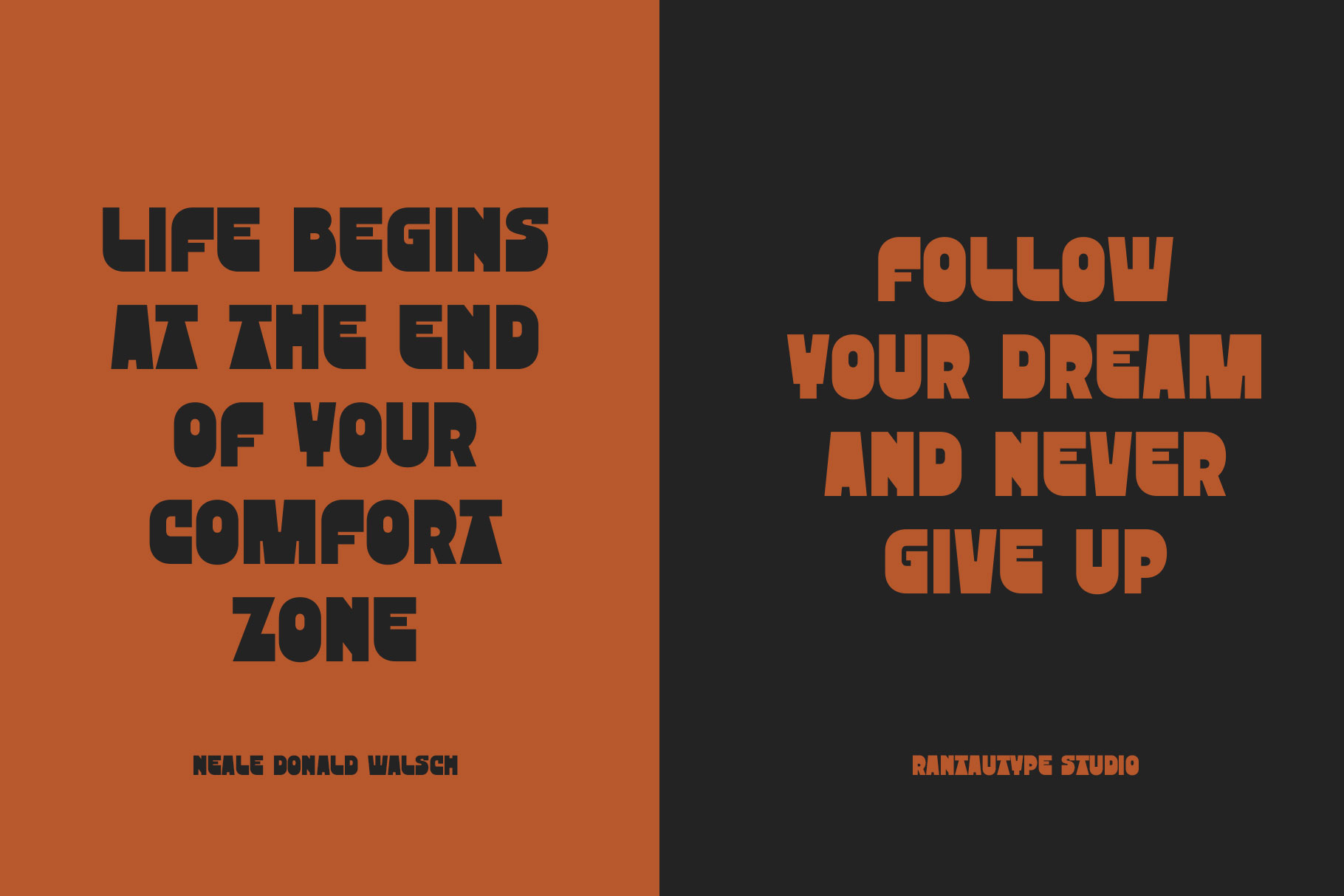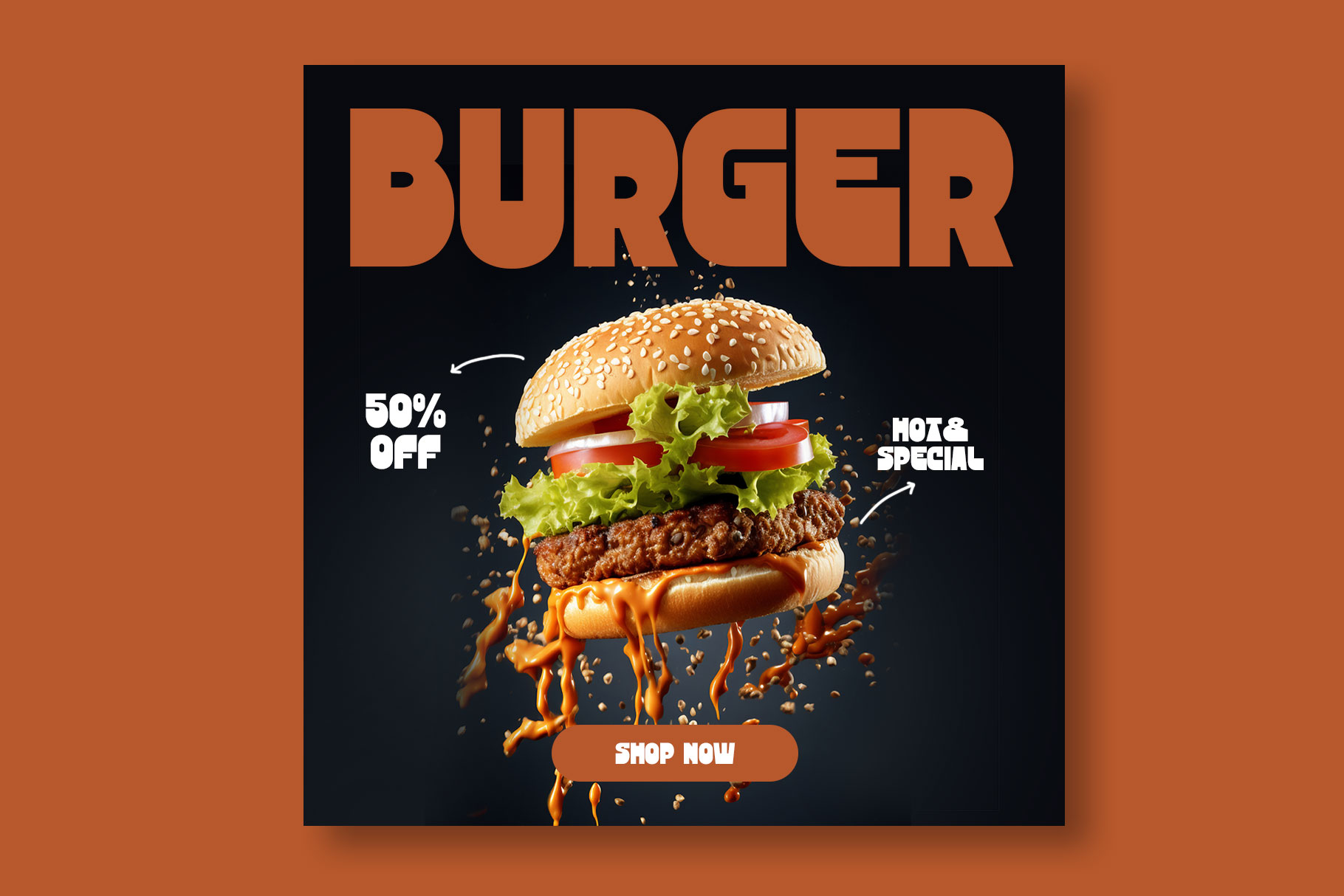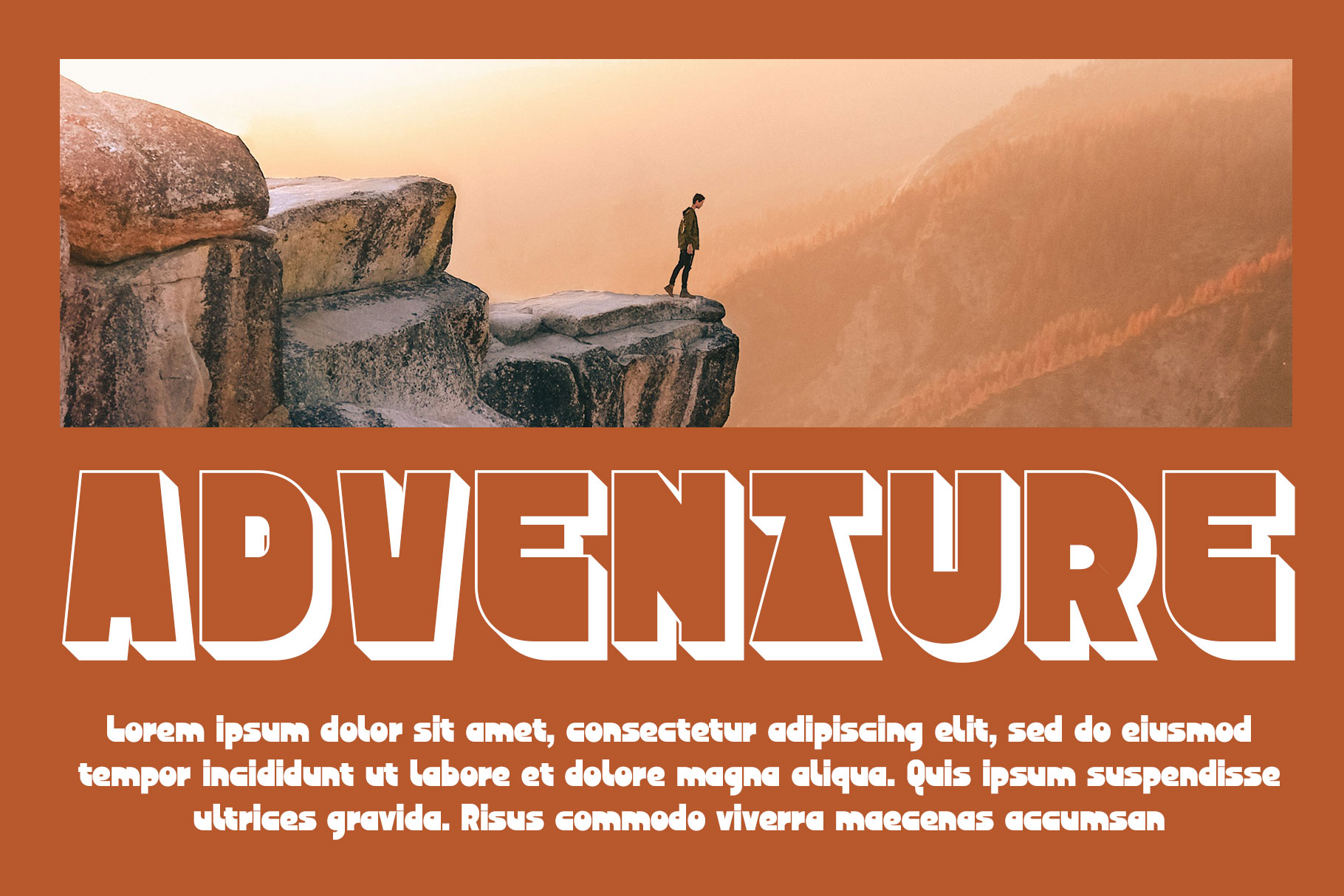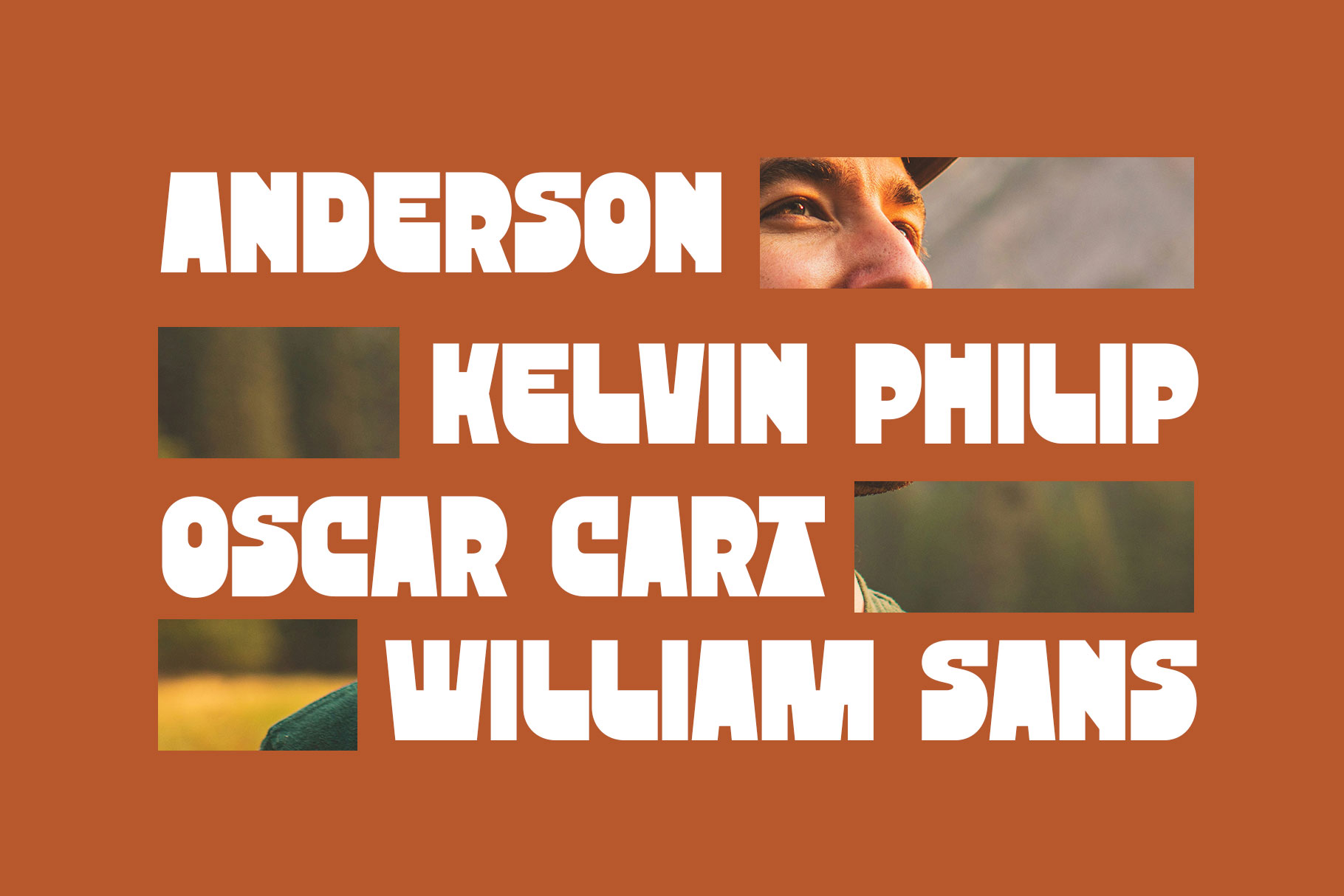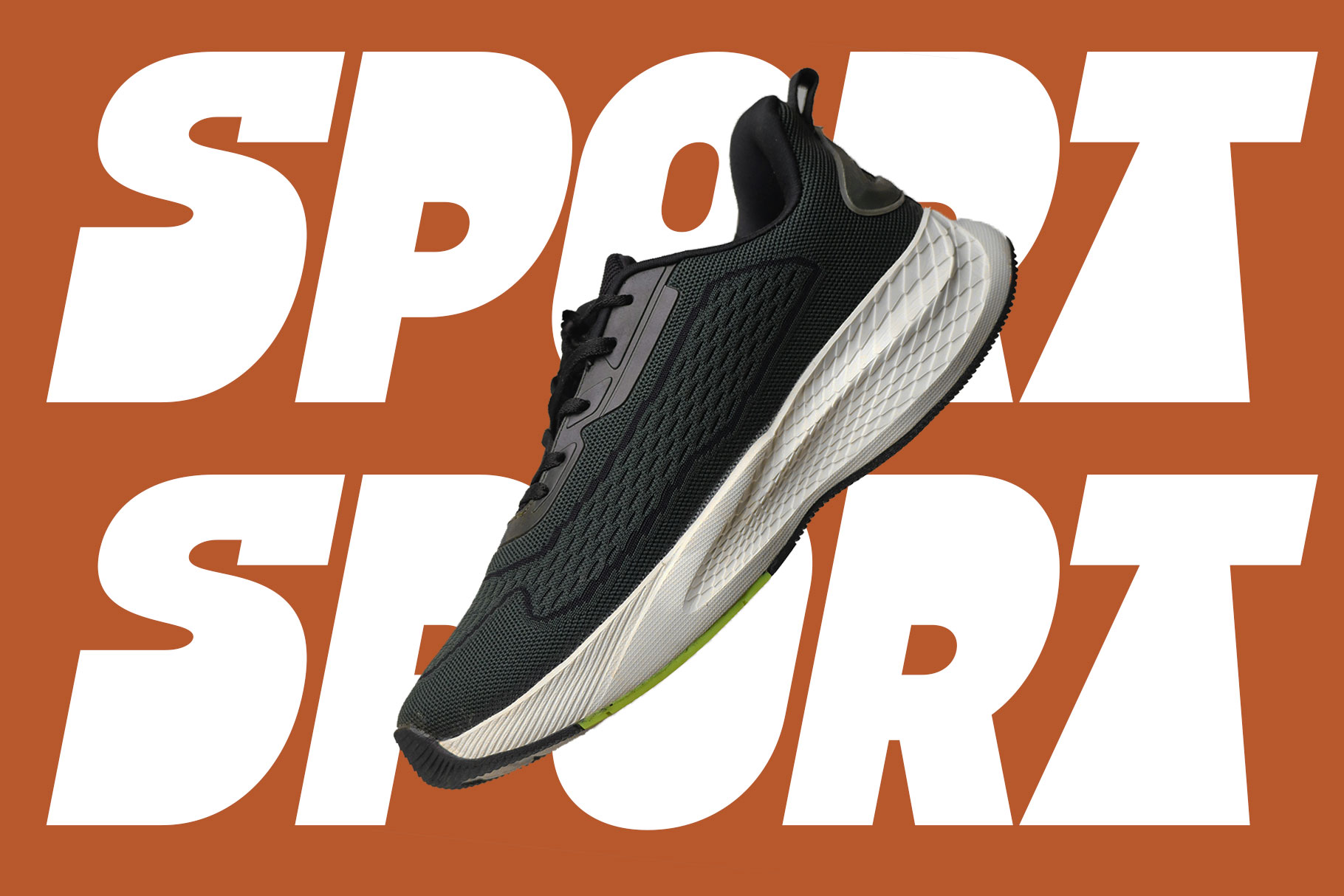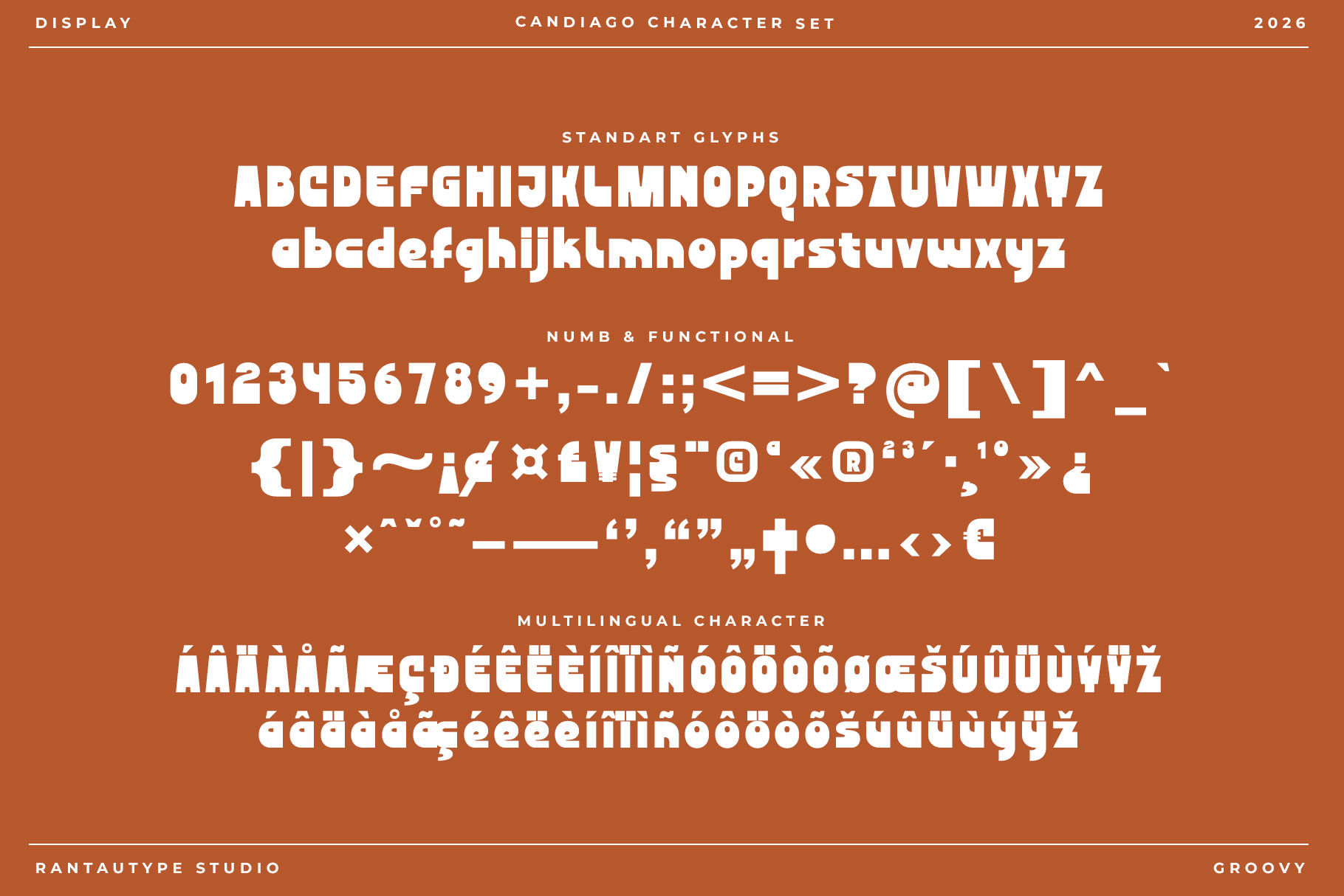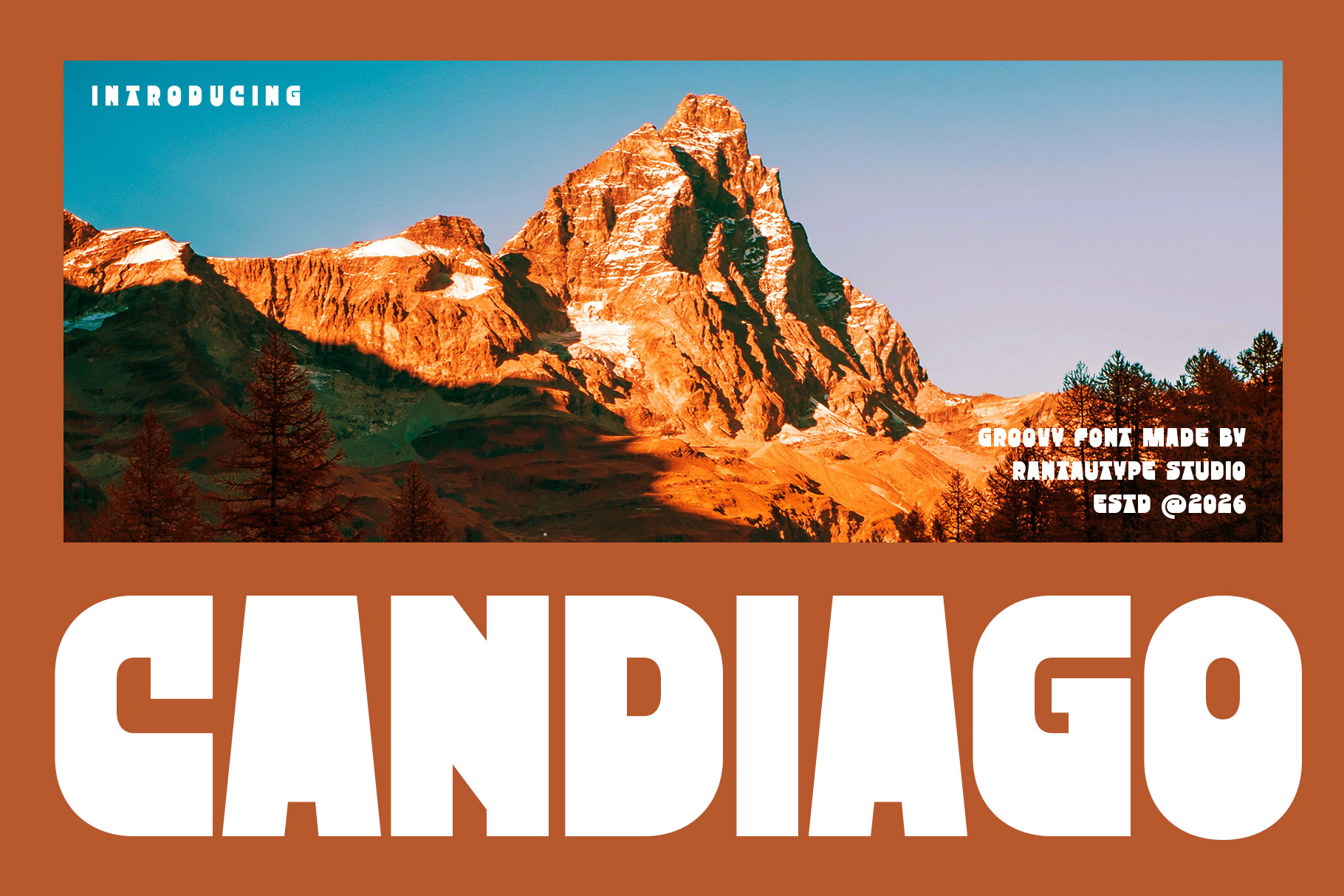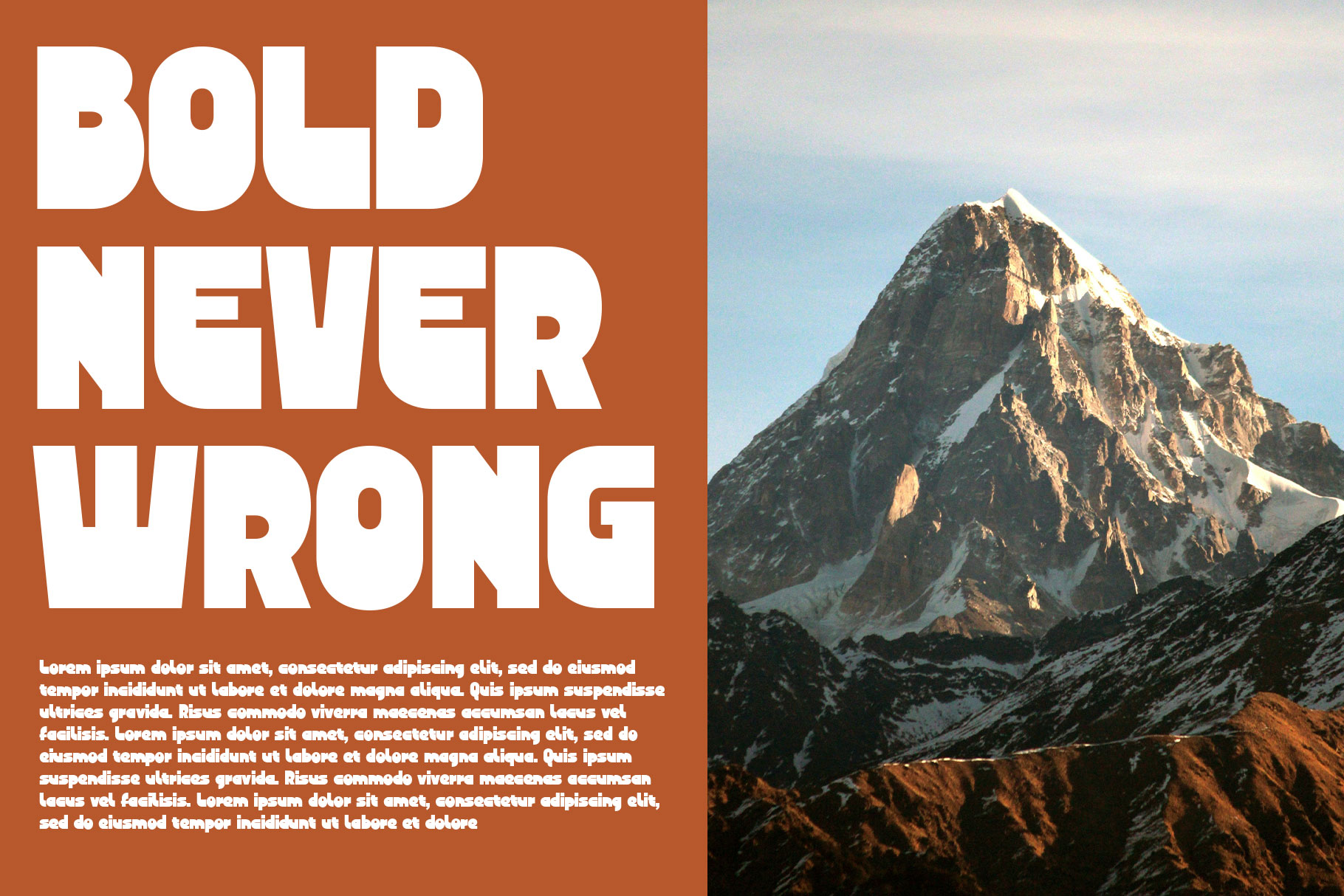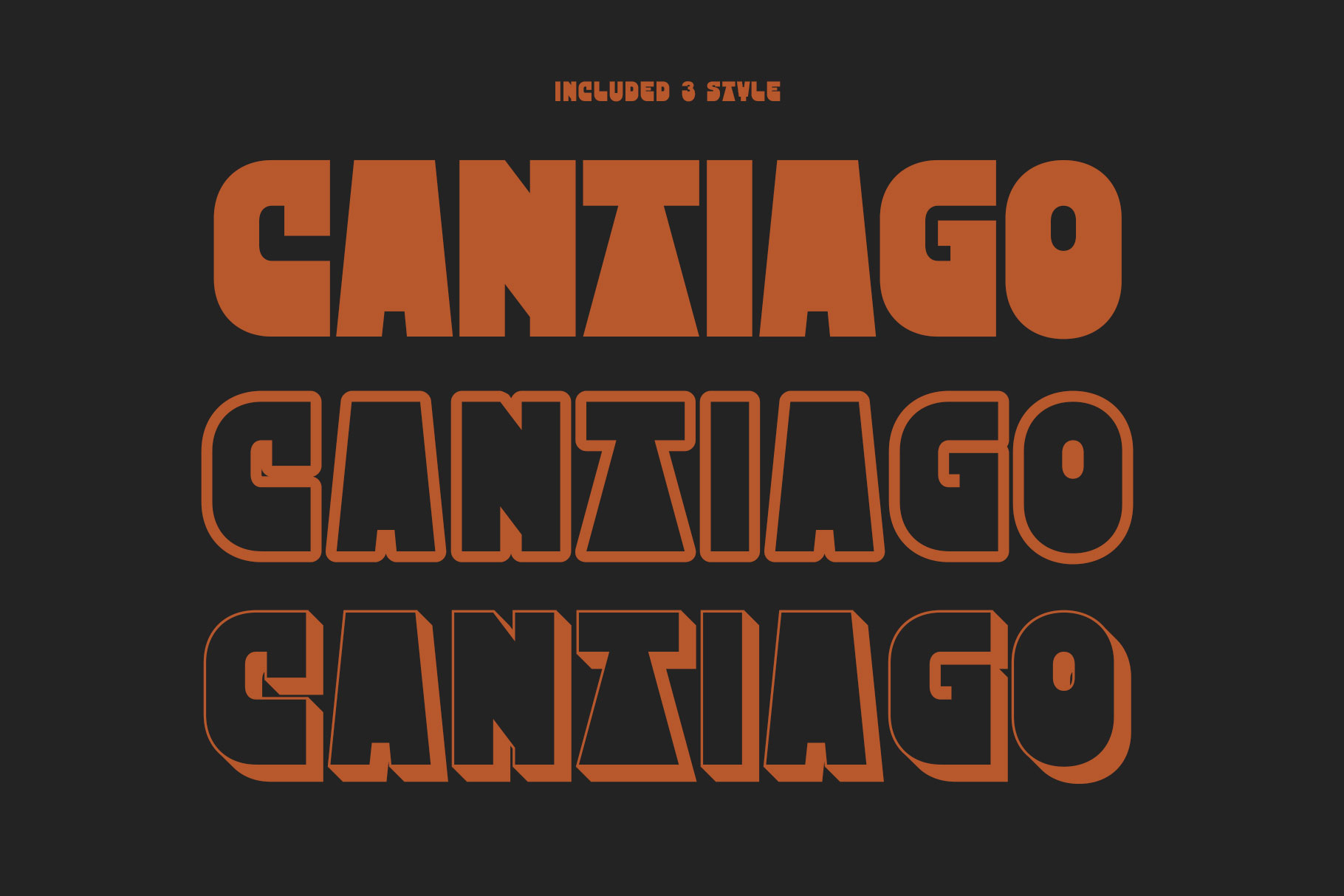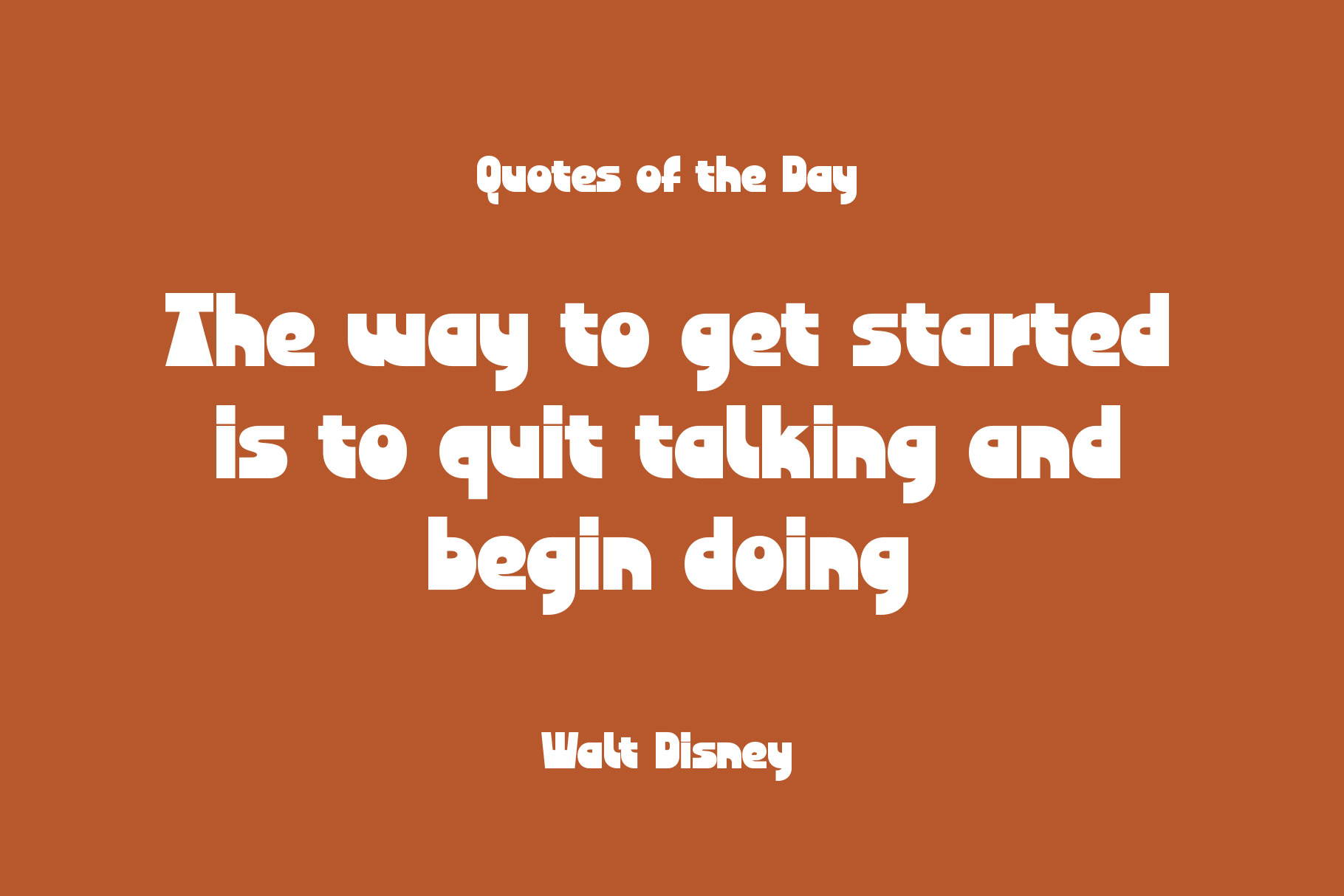
Candiago Funky Font
Candiago is funky font with bold celebration of creativity, personality, and visual rhythm. Candiago is a perfectly choice for any creative endeavor, chic, lifestyle design such as logotype, advertisements, watermark on photography, stationery, branding project, display and magazine, invitation, corporate brand, product design, label, business project and many other project with funky fun touch.